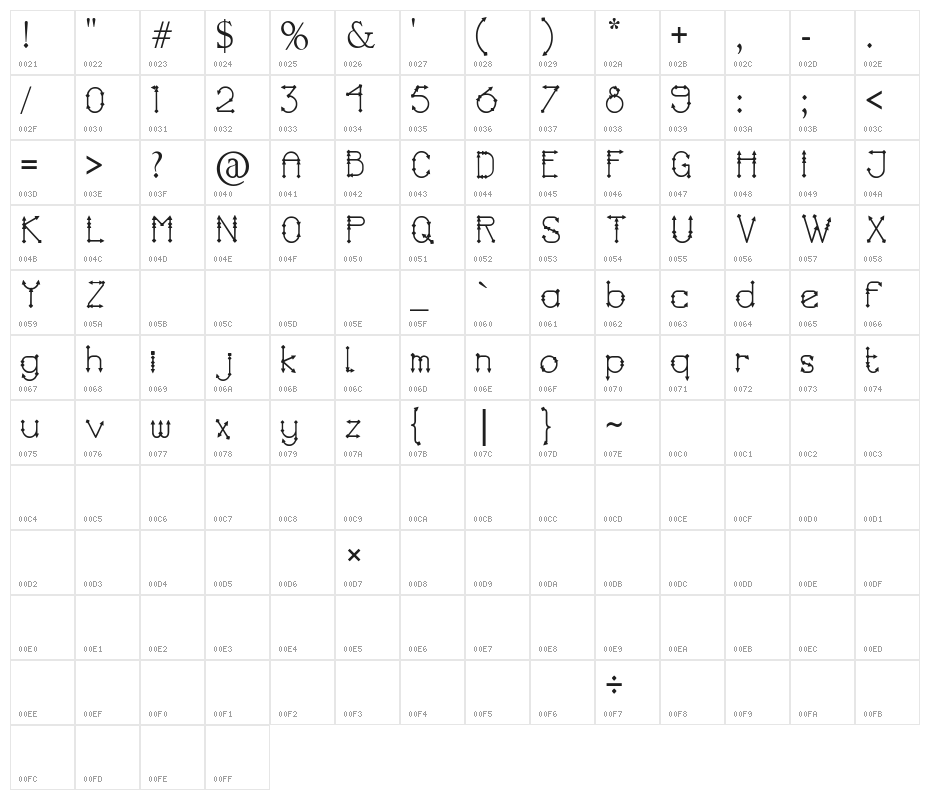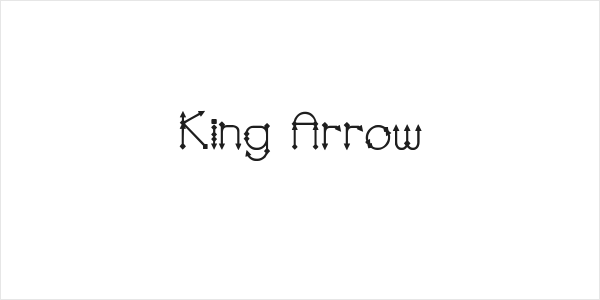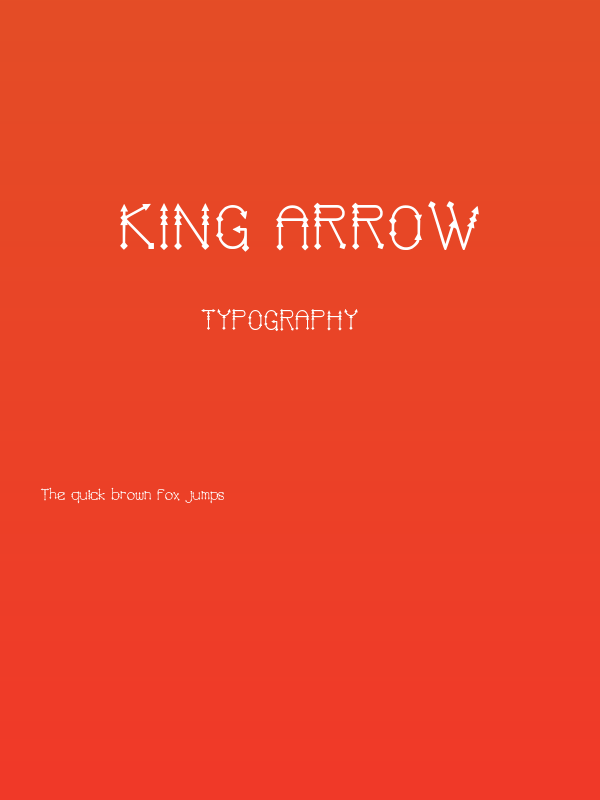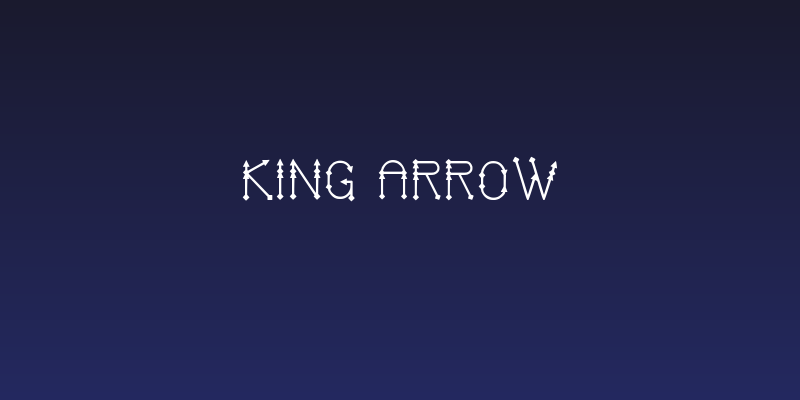
King Arrow Font
King Arrow Description
This font features a unique and playful design where each character is crafted with arrow motifs. The arrows are integrated into the structure of the letters and numbers, giving them a dynamic and directional appearance. The uppercase and lowercase letters maintain a consistent style, with arrows pointing in various directions, adding a sense of movement. The numbers and special characters also follow this theme, ensuring a cohesive look across all glyphs. This font is ideal for creative projects that require a bold and eye-catching typeface.
| Use Case | Logos, Posters, Creative Branding |
| Proposed Projects | Ideal for creative projects such as posters, logos, and branding materials that require a bold and unique typeface. |